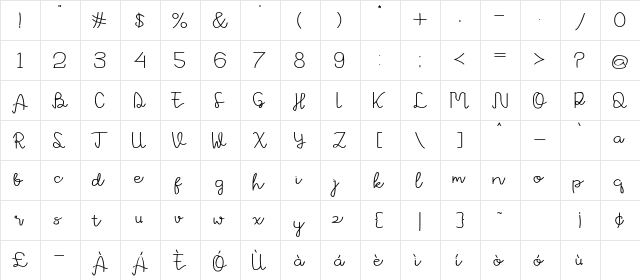
Avrilya Regular
Design Context for Avrilya Typeface
Avrilya is a composed and adaptable typeface that performs quietly and consistently across a wide range of design contexts.